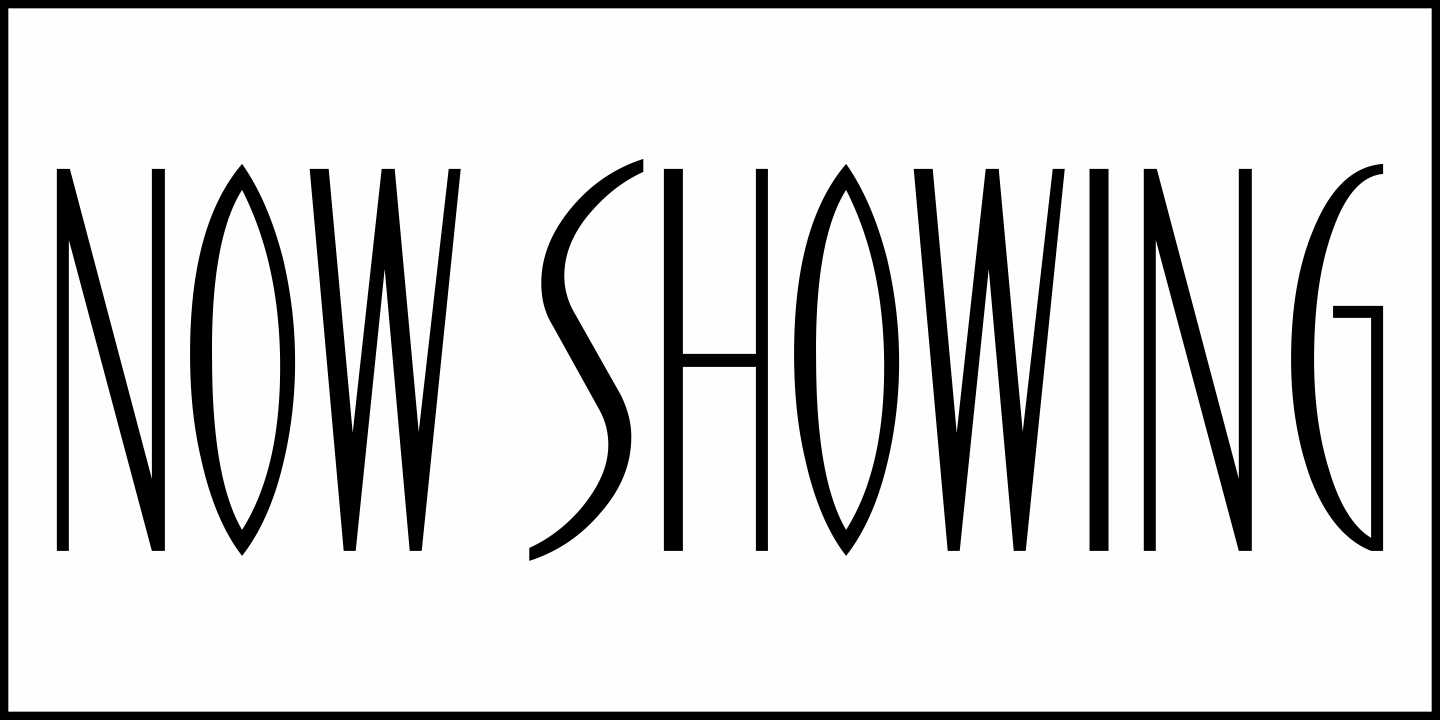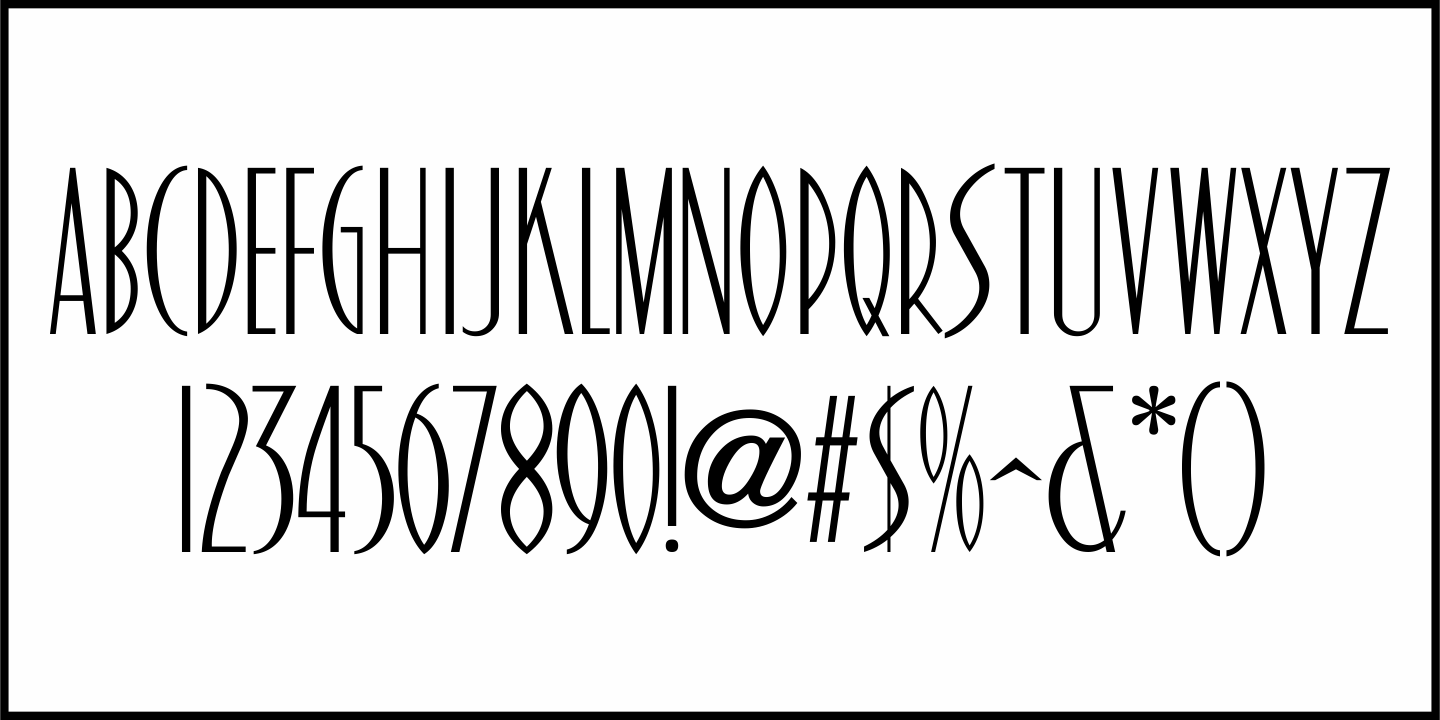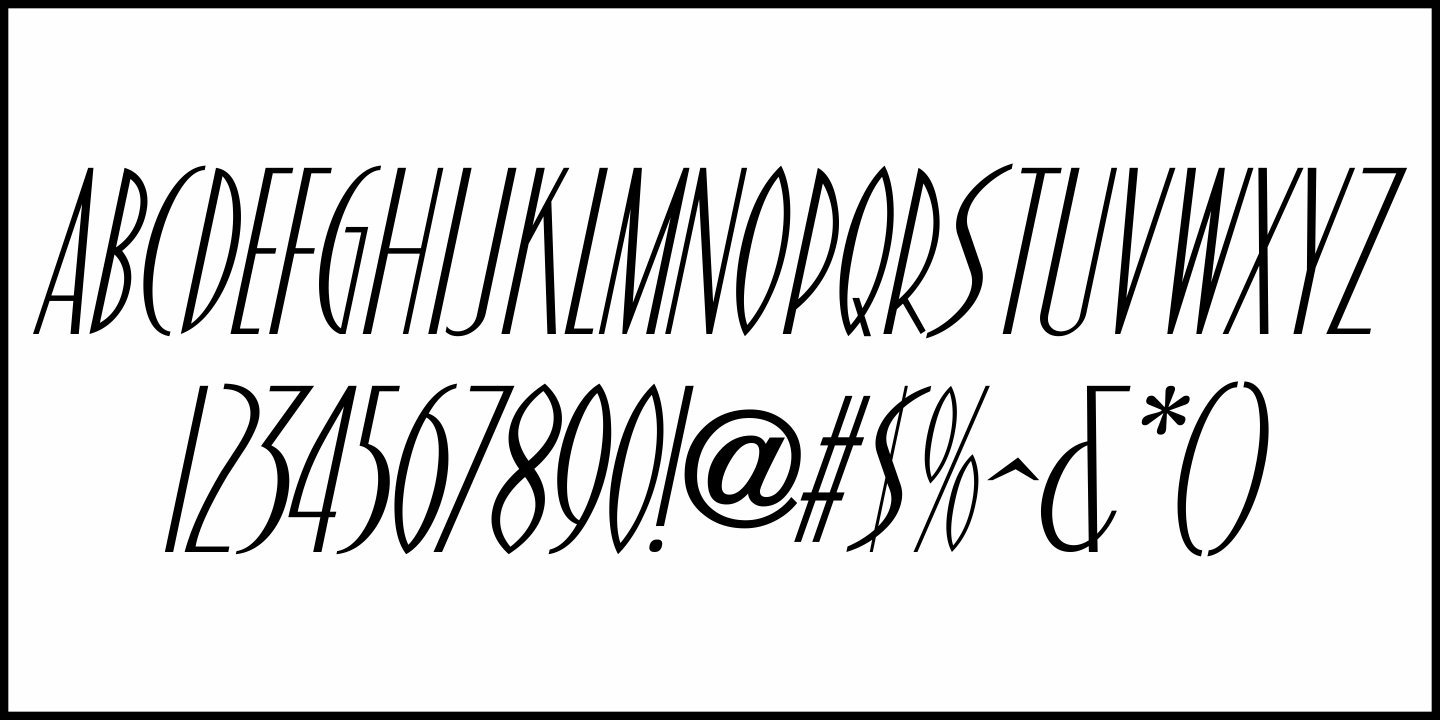
Now Showing
Inside the pages of the April, 1937 issue of the fan magazine 'Hollywood Now” is an unusual bit of hand lettering used for the titles in a number of featured articles.
A narrow thick-and-thin Art Deco alphabet with many stylized characters, this type design is now available as Now Showing JNL in both regular and oblique versions.